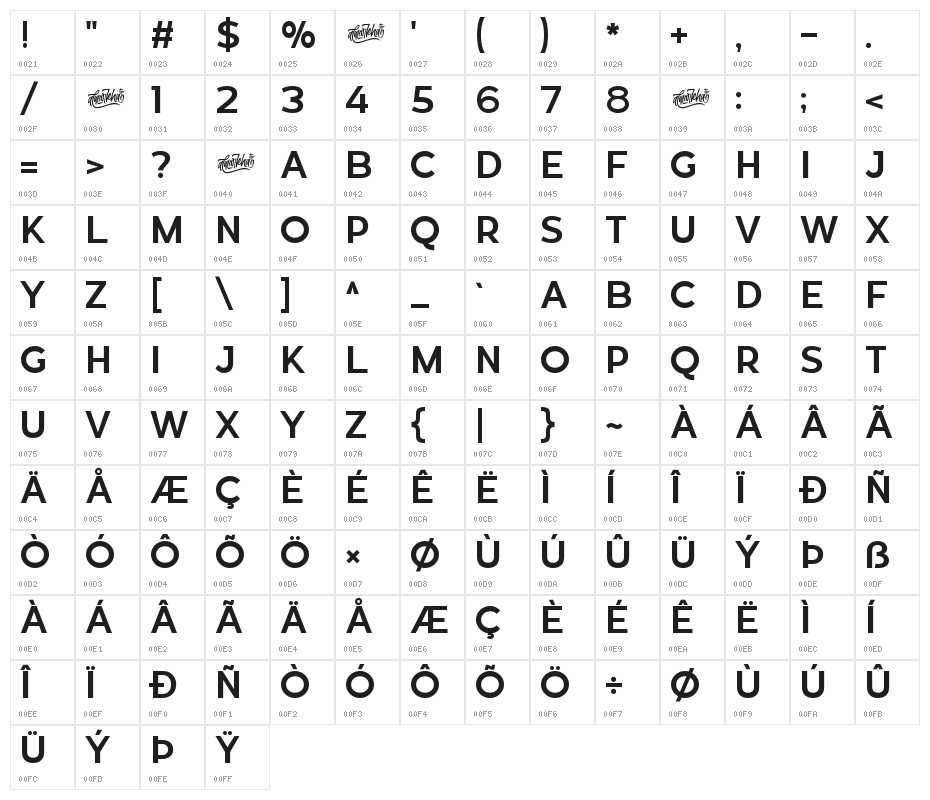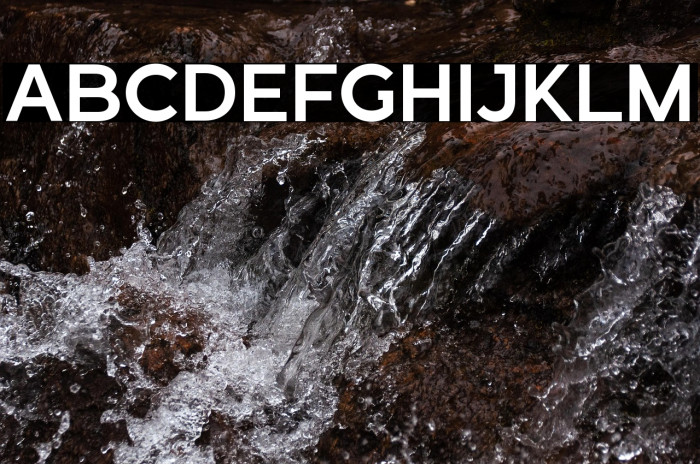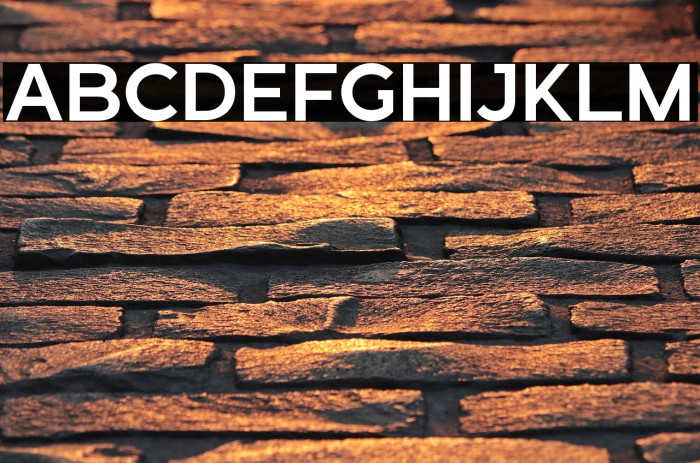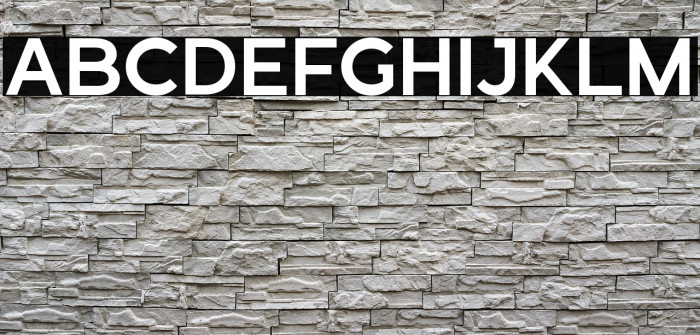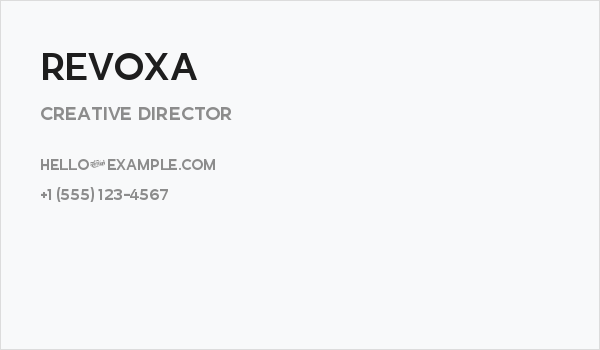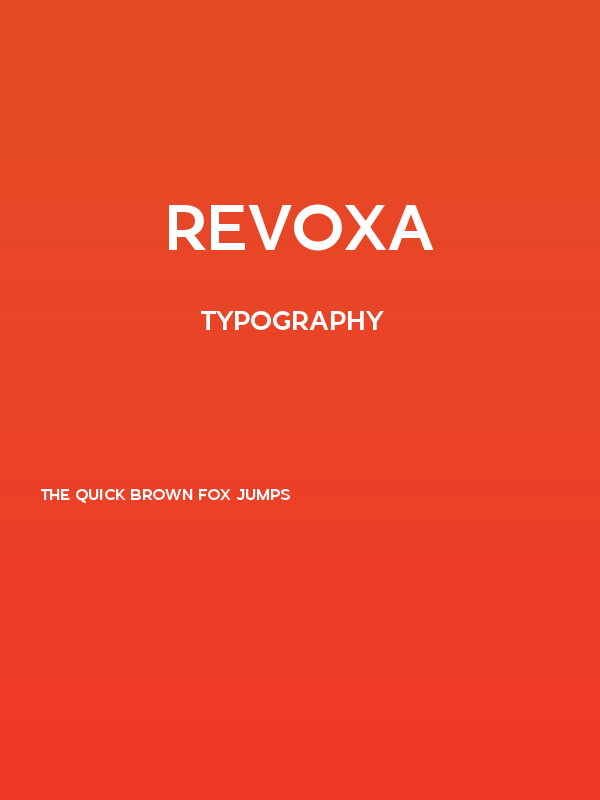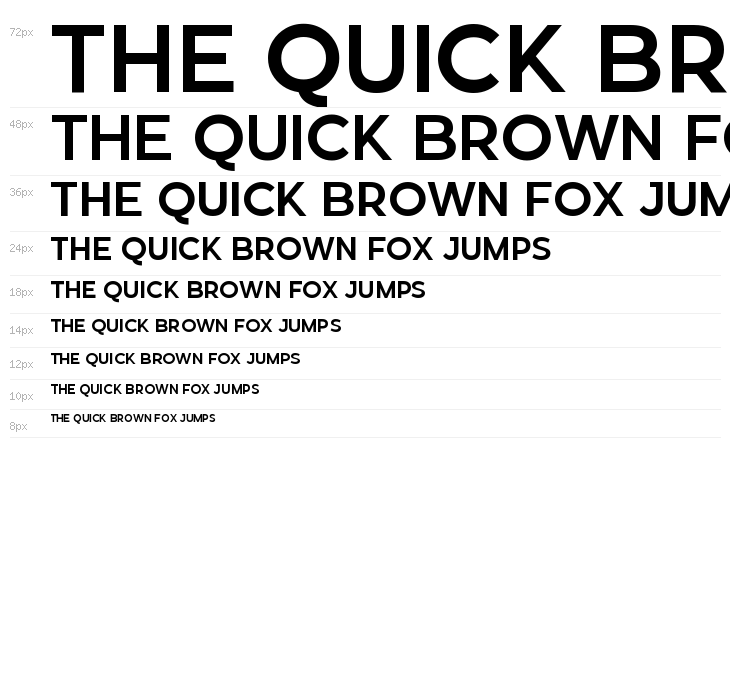
Revoxa Font
Revoxa Description
This font features a bold and modern sans-serif style with clean, geometric lines and uniform stroke widths. The uppercase letters are well-proportioned, offering a strong and assertive appearance, while the lowercase letters maintain a consistent design that complements the uppercase set. The numerals are clear and easily distinguishable, making them suitable for a variety of applications. Special characters are included, providing versatility for different types of text. The overall design is straightforward yet impactful, making it ideal for contemporary design projects.
| Proposed Projects | Ideal for branding, advertising, headlines, and digital media projects. |